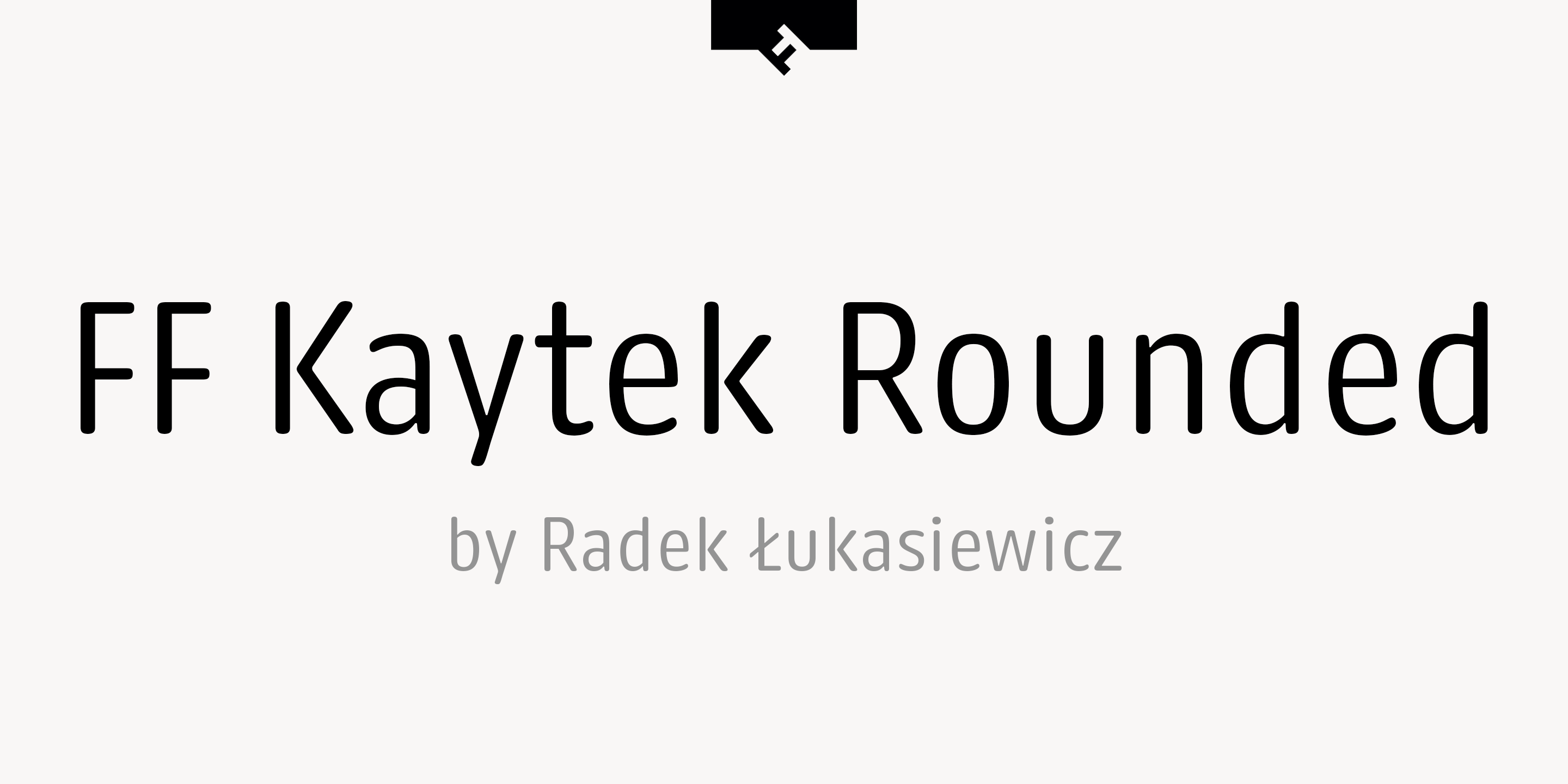
The FF Kaytek Rounded Font is ideal for friendly brand identities, children's educational materials, approachable tech interfaces, casual dining establishments, wellness centers, family-oriented packaging, community organizations, and welcoming design projects that require warmth and accessibility with contemporary professionalism.
What makes the FF Kaytek Rounded Font Free Download so exciting is its masterful balance between technical precision and human warmth through carefully rounded terminals that soften geometric structure without compromising clarity. This typeface transforms traditional sans-serif functionality into an approachable, friendly communication tool that instantly puts audiences at ease. Its rounded character endings create a sense of comfort and trust while maintaining the clean aesthetics necessary for professional applications, making it perfect for brands seeking to appear both competent and caring.
The FF Kaytek Rounded Font family encompasses comprehensive weight variations from Light to Black, each preserving the font's signature rounded character and welcoming personality. The collection includes Regular, Medium, Semibold, Bold, and Heavy styles with corresponding italic variants for enhanced expressive capabilities. This extensive font system ensures designers have complete flexibility for creating friendly yet professional visual communications that work seamlessly across digital platforms, print materials, and branding applications.
Perfect for healthcare organizations, educational institutions, family brands, and service providers emphasizing approachability and trust. The font's friendly appeal makes it essential for UX/UI designers, brand strategists, and creative teams developing communications that must be both professional and welcoming. Download FF Kaytek Rounded Font Free Download today and bring warmth to your design projects with this exceptional typeface that perfectly balances professional capability with human-centered accessibility for contemporary applications.